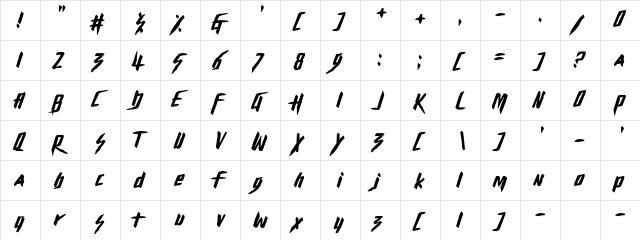
Misery Gymnast Regular
Design Context for Misery Gymnast Typeface
Misery Gymnast is a composed and adaptable typeface that performs quietly and consistently across a wide range of design contexts.
Pro Tip: Use Misery Gymnast in both headline and body roles to test its range before committing to a single application.